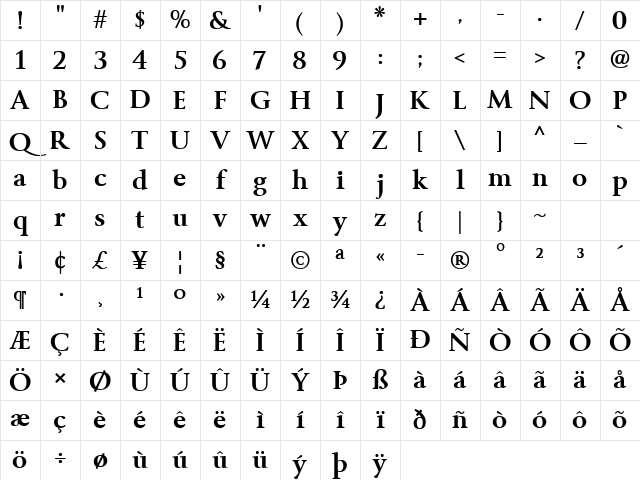
Byington Bold
Byington Family
Design Context for Byington
Byington is a composed and adaptable typeface that performs quietly and consistently across a wide range of design contexts. Its bold stroke weight gives it real presence on the page.